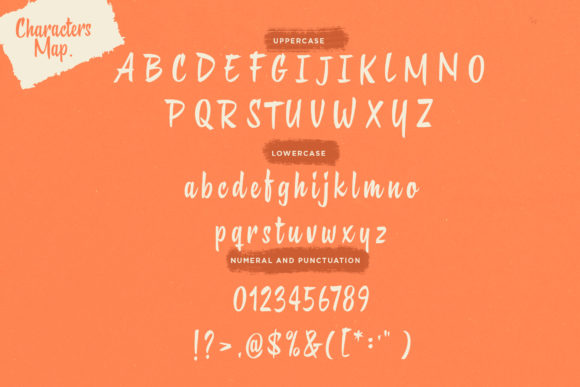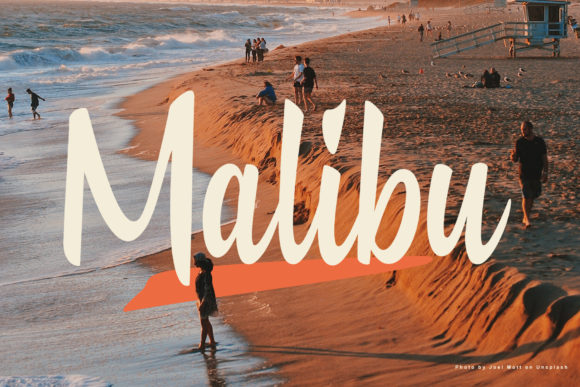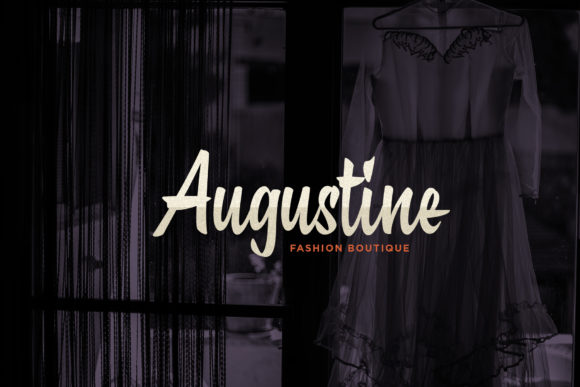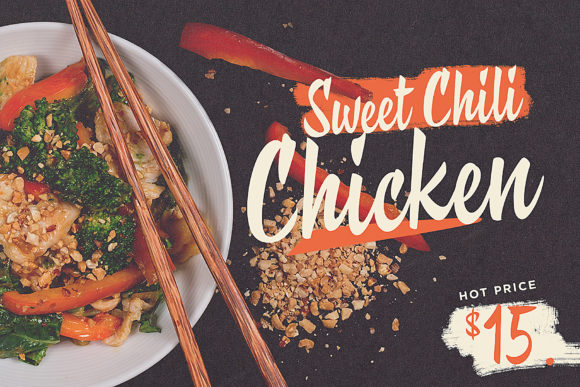
Discover the Charm of Bittybite Font: A Friendly and Fun Handwritten Delight
Are you a designer, crafter, or DIY enthusiast looking for a font that adds a touch of personality to your projects? Look no further than Bittybite Font, a friendly and fun handwritten font that is sure to capture your heart. With its unique style and authentic charm, Bittybite is the perfect addition to any creative endeavor.
The Story Behind Bittybite Font
Bittybite Font is a carefully crafted handwritten font that is designed to bring a sense of warmth and approachability to your designs. Its creator, [font designer name], aimed to create a font that would stand out from the crowd and provide a fresh alternative to traditional fonts. The result is a font that is both playful and elegant, making it suitable for a wide range of applications.
What Makes Bittybite Font So Special?
So, what sets Bittybite Font apart from other fonts? Here are just a few of its unique features:
- Unique Handwritten Style: Bittybite Font boasts a distinctive handwritten style that is both fun and authentic. Its irregularities and quirks give it a personal touch that is hard to replicate with traditional fonts.
- Highly Legible: Despite its playful nature, Bittybite Font is highly legible, making it suitable for use in a variety of contexts, from headings and titles to body text.
- Versatile: Bittybite Font is incredibly versatile, and can be used in a wide range of applications, including branding, packaging, signage, and more.
Bittybite Font is a dream come true for designers and crafters who are looking for a font that will add a touch of personality to their work. Whether you’re creating:
- Branding Materials: Use Bittybite Font to create eye-catching logos, business cards, and letterheads that showcase your brand’s personality.
- DIY Projects: Add a personal touch to your handmade crafts, such as knitting patterns, sewing projects, and scrapbooking pages.
- Signage and Displays: Use Bittybite Font to create eye-catching signs, posters, and displays that are sure to grab attention.
Tips for Using Bittybite Font
To get the most out of Bittybite Font, here are a few tips to keep in mind:
- Experiment with Sizes: Bittybite Font looks great in a variety of sizes, from large headings to smaller body text.
- Play with Colors: The warm and playful nature of Bittybite Font makes it perfect for use with bright, bold colors.
- Mix and Match: Don’t be afraid to combine Bittybite Font with other fonts to create a unique and eye-catching look.
In conclusion, Bittybite Font is a friendly and fun handwritten font that is sure to capture your heart. With its unique style, authentic charm, and versatility, it’s the perfect addition to any design or crafting project. So why wait? Fall in love with Bittybite Font today and discover a whole new world of creative possibilities!